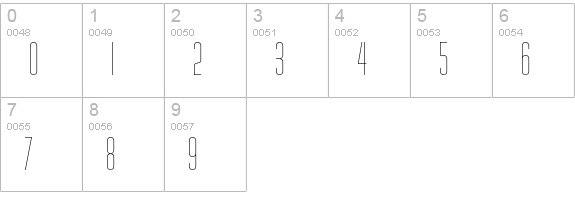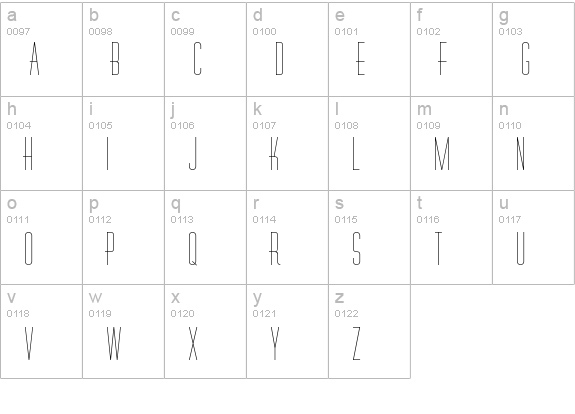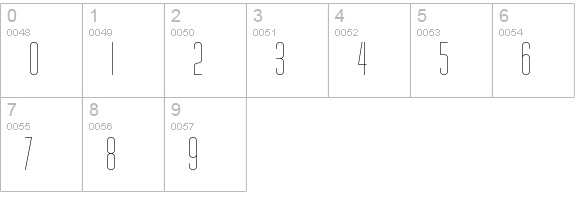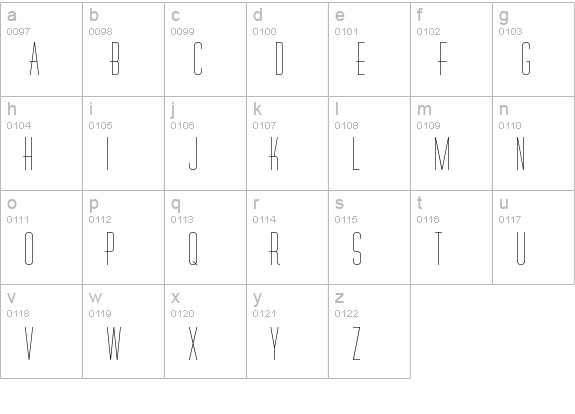
RhyOlver Font Details
RhyOlver font is a stunning and versatile typeface that exudes elegance and sophistication. With its timeless appeal and unique design, this font is sure to make a lasting impression on any project it is used for. The beauty of RhyOlver font lies in its graceful curves and smooth lines, which effortlessly blend together to create a harmonious and balanced look. Whether used for headlines, logos, or body text, this font guarantees a polished and professional finish. What sets RhyOlver font apart from the rest is not only its aesthetic appeal but also its accessibility. This font is freely available to download at FontsMarket.com, making it easily accessible to designers, creatives, and typographers alike. With RhyOlver font, the possibilities are endless. Its versatility allows it to be used in a wide range of projects, from branding and advertising to packaging and editorial design. Its clean and legible characters make it ideal for both print and digital applications. Embrace the beauty and functionality of RhyOlver font and elevate your designs to new heights. Download this remarkable typeface today at FontsMarket.com and experience the freedom of creativity it brings.